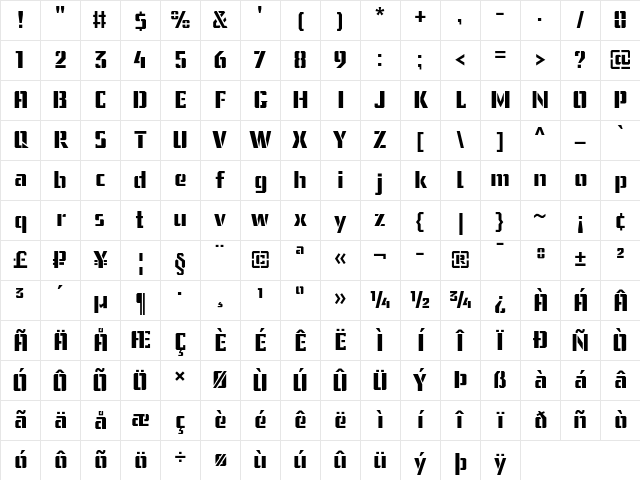
USSR STENCIL borrows the utilitarian aesthetic of stencil lettering, with its characteristic cutaways and no-frills construction lending an industrial edge.
Pro Tip: Use USSR STENCIL at large sizes on packaging, posters, or apparel where the stencil cutaways read clearly. Avoid small sizes where those gaps become visual noise.